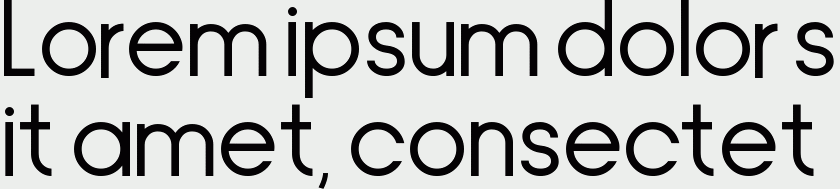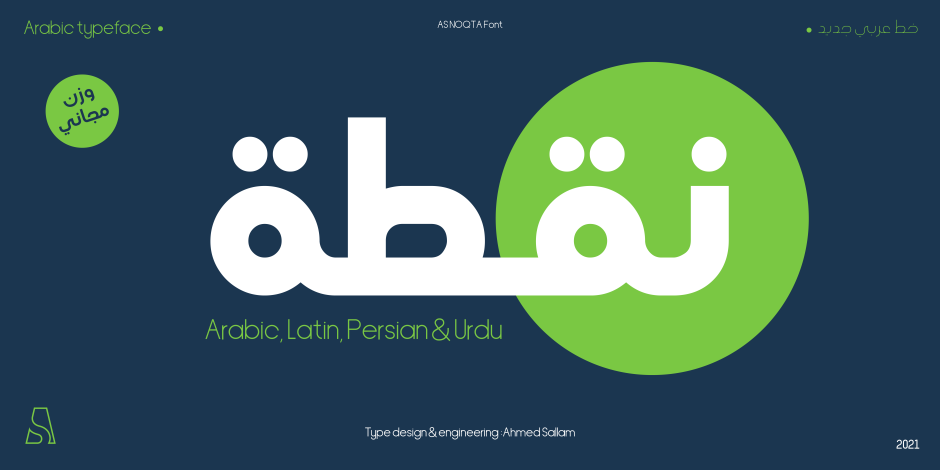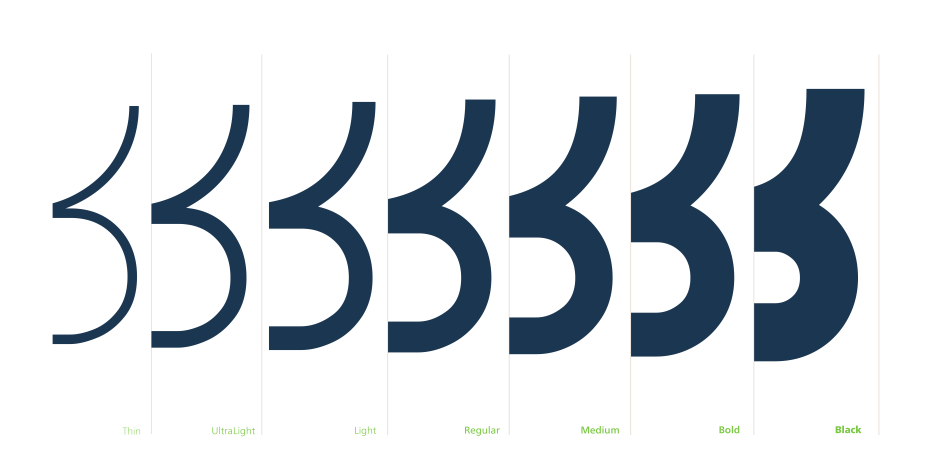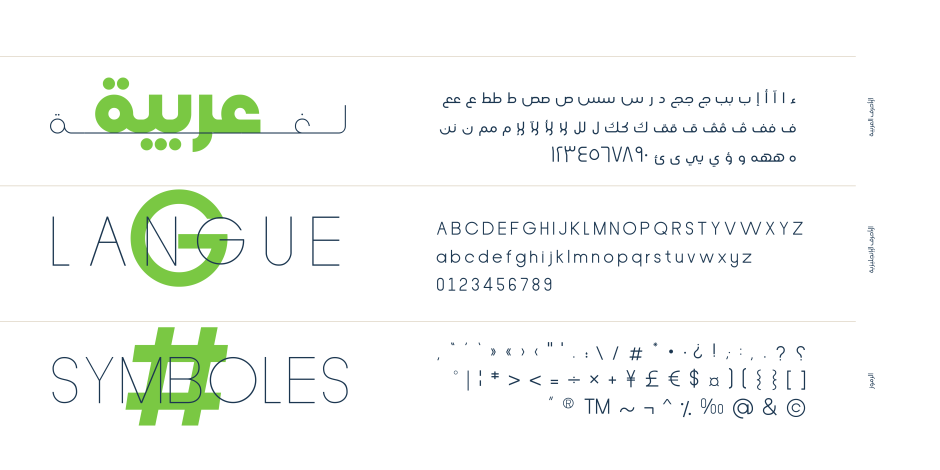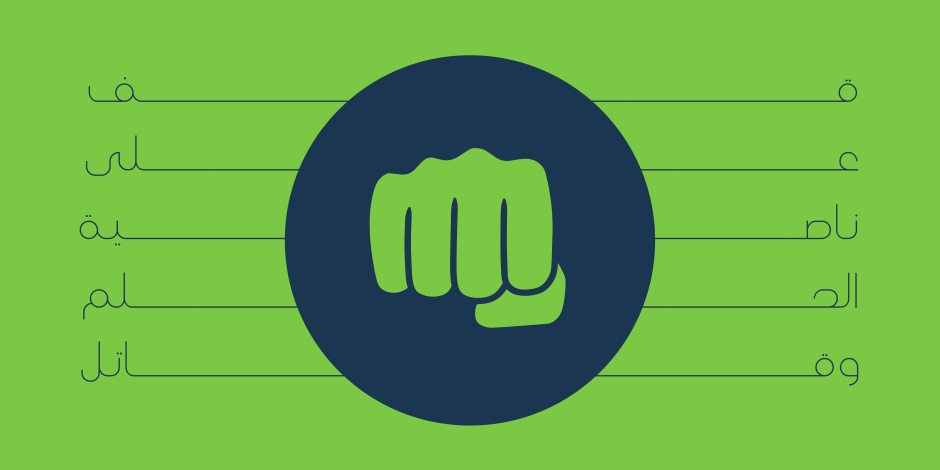
AS Noqta
AS-NOQTA Font is a soft contemporary geometric typeface that blends distinct minimalist characteristics with mainstream details. It originates from circl shap , a with a warm well-balanced texture and a distinct personality.
AS-NOQTA type family includes 7 weights from Thin to Heavy.
AS-NOQTA type family supports Arabic, English with Numbers
AS-NOQTA type family includes 7 weights from Thin to Heavy.
AS-NOQTA type family supports Arabic, English with Numbers
Designer: Ahmed Sallam